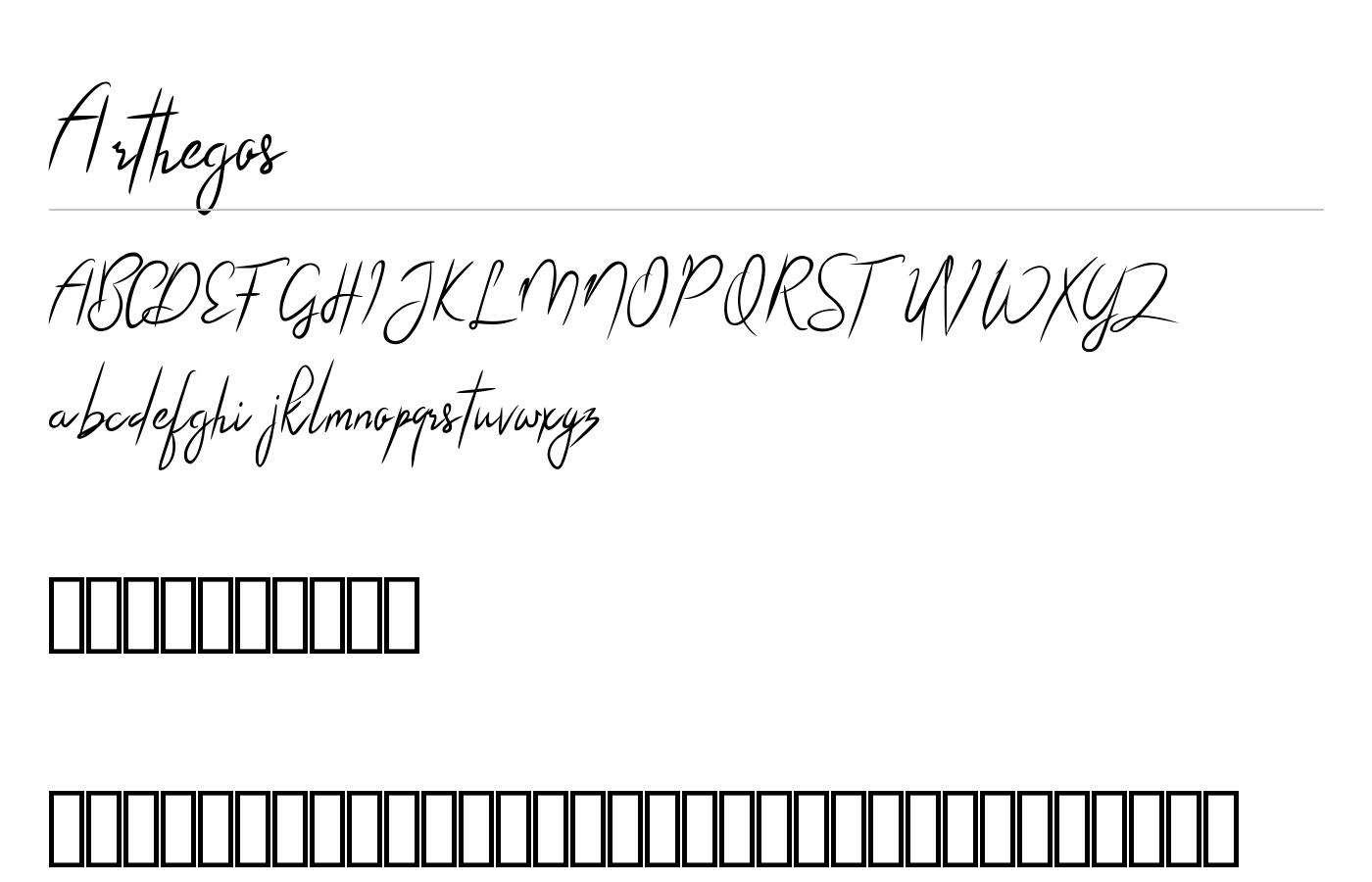
Arthegos is a delicate, handwritten script font characterized by its thin, flowing lines and elegant, slightly irregular letterforms that evoke a natural, personal touch. Its slender strokes and lively, cursive style make it perfect for invitations, branding, and creative projects seeking a refined yet approachable look. This font works best in display settings where a graceful, artistic personality is desired.